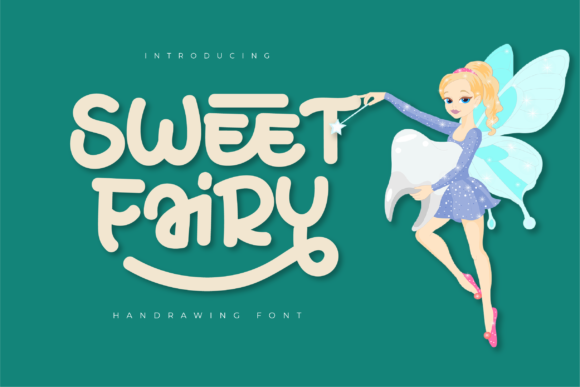
Introducing Sweet Fairy—a bold and sophisticated display font that exudes elegance and uniqueness. With its chunky, extended characters, this font breathes life into your designs, making them stand out from the crowd.
Sweet Fairy is the perfect choice for logos, branding, packaging design, and any project that yearns for a touch of boldness and sophistication. Each character is a work of art, meticulously crafted to captivate and inspire. Its chunky features add a touch of playfulness, while its extended form conveys a sense of grandeur.
Whether you're a seasoned designer or just starting your creative journey, Sweet Fairy is the font that will ignite your imagination and unleash your potential. Download Sweet Fairy today and embark on a typographic adventure that will leave a lasting impression.
Imagine the possibilities:
- Logos that radiate boldness and leave an unforgettable mark
- Branding that exudes sophistication and sets you apart
- Packaging designs that capture attention and drive sales
- Invitations, greeting cards, and social media posts that ooze charm and personality
With Sweet Fairy, the possibilities are endless. Its versatility and allure make it a must-have for any designer seeking to create truly captivating designs.
Don't let your creativity be confined by ordinary fonts. Embrace the extraordinary with Sweet Fairy, and watch your designs soar to new heights of brilliance.